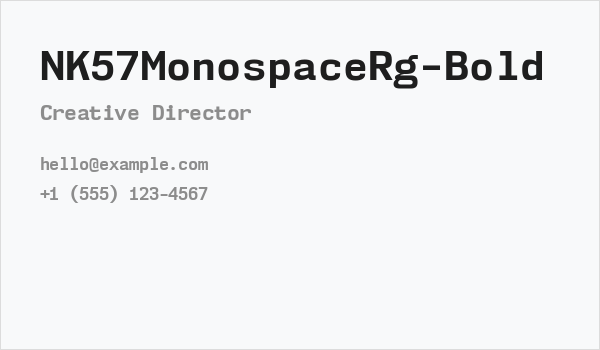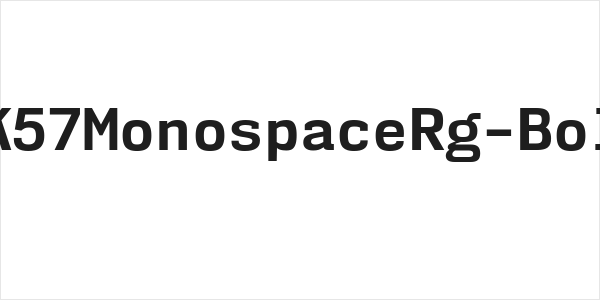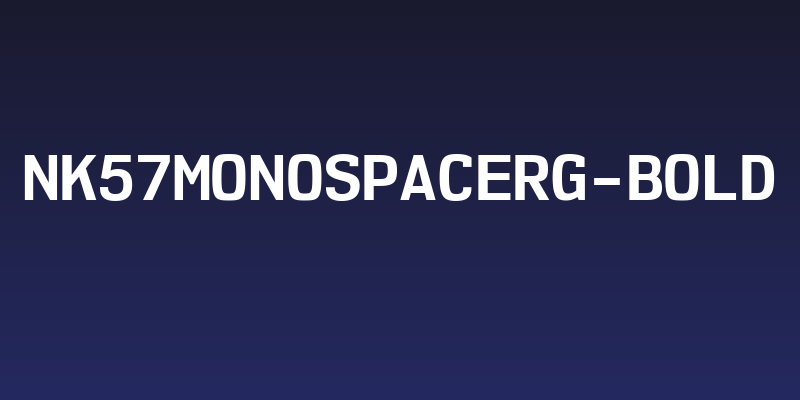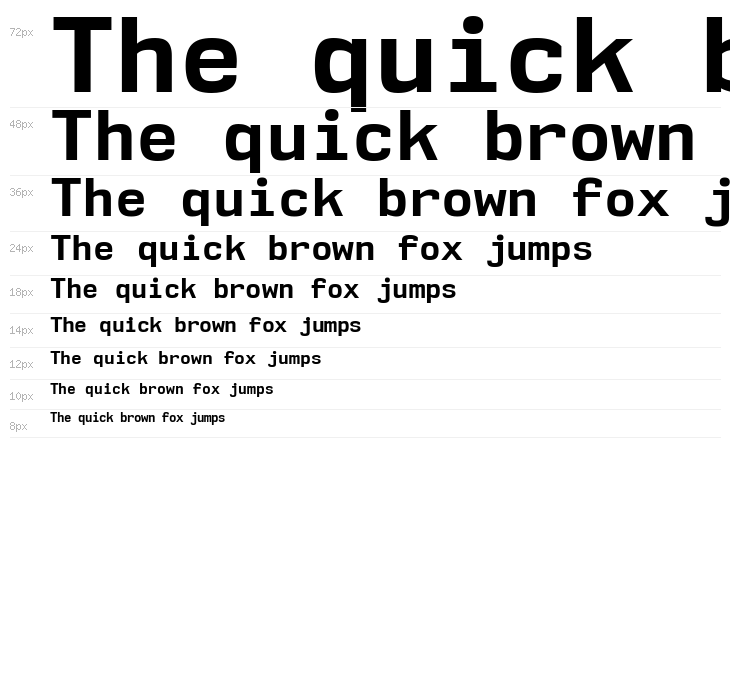
NK57MonospaceRg-Bold Font
NK57MonospaceRg-Bold Description
This typeface features a bold, monospaced design, characterized by uniform character width and a strong, structured appearance. The uppercase and lowercase letters are clearly defined, with a consistent stroke weight that enhances readability. The numerals and special characters maintain the same monospaced style, ensuring alignment and precision in text layouts. The font's boldness makes it suitable for applications where clarity and impact are essential, such as coding environments, technical documents, and data tables. Its straightforward and clean design lends itself well to both digital and print media.
| Use Case | Coding, Technical documents, Data tables |
| Proposed Projects | Ideal for coding, technical documents, data tables, and any project requiring precise alignment. |